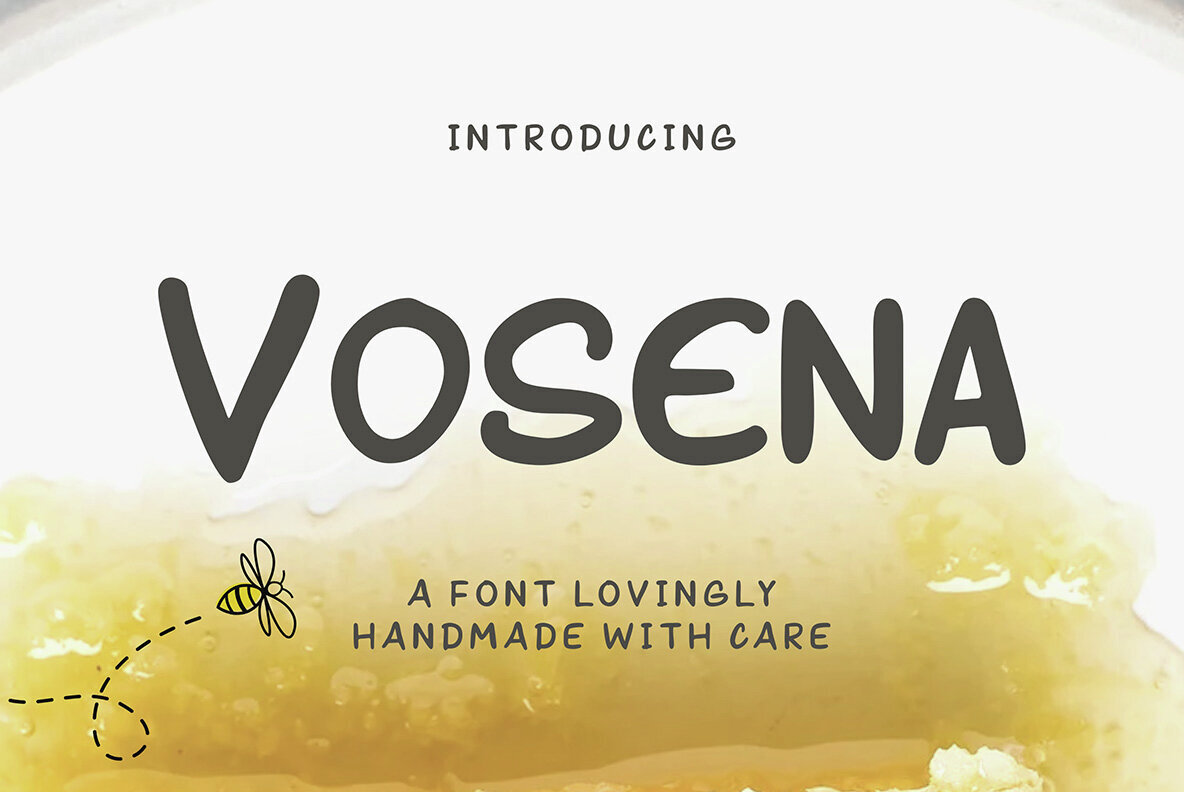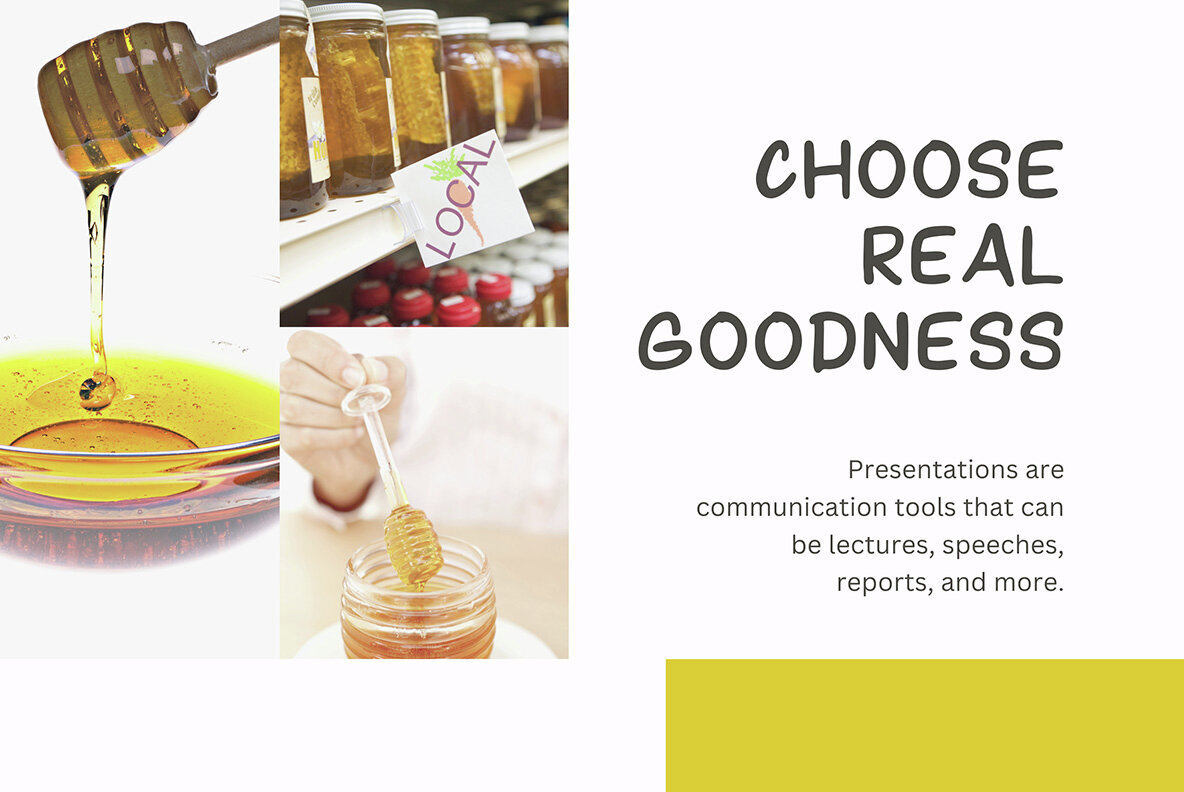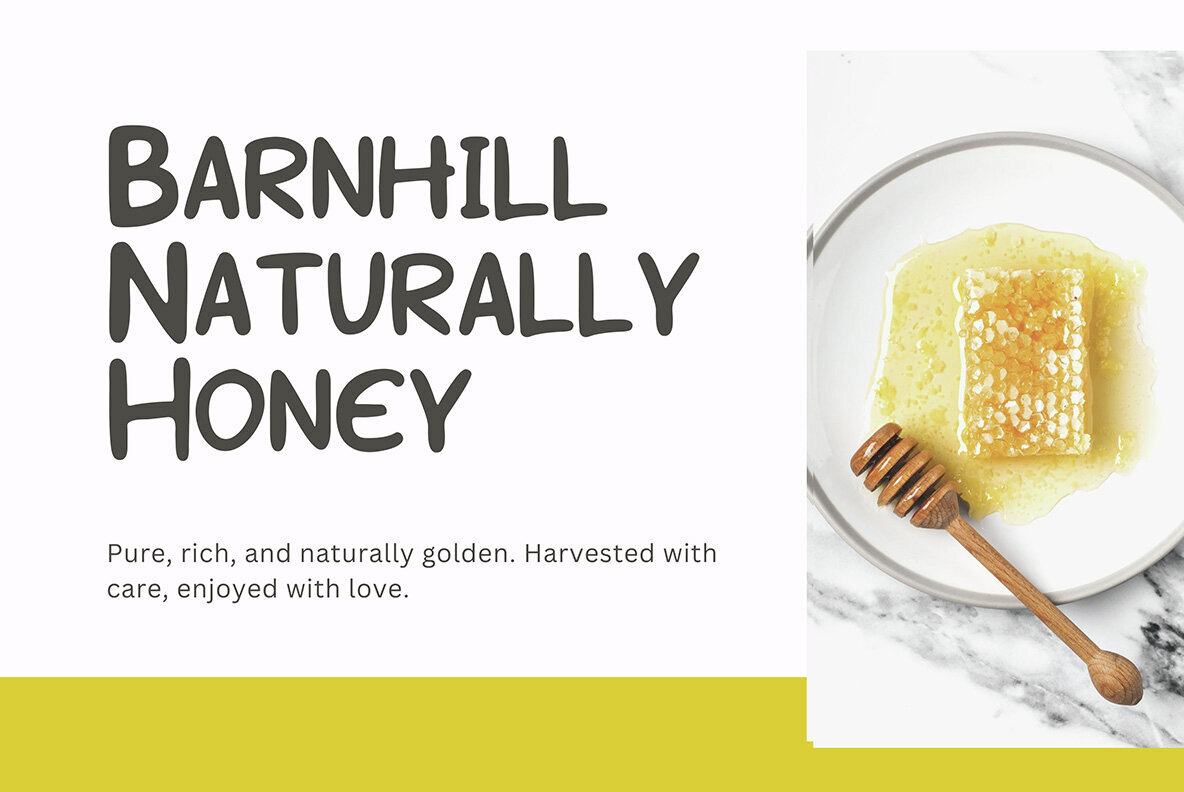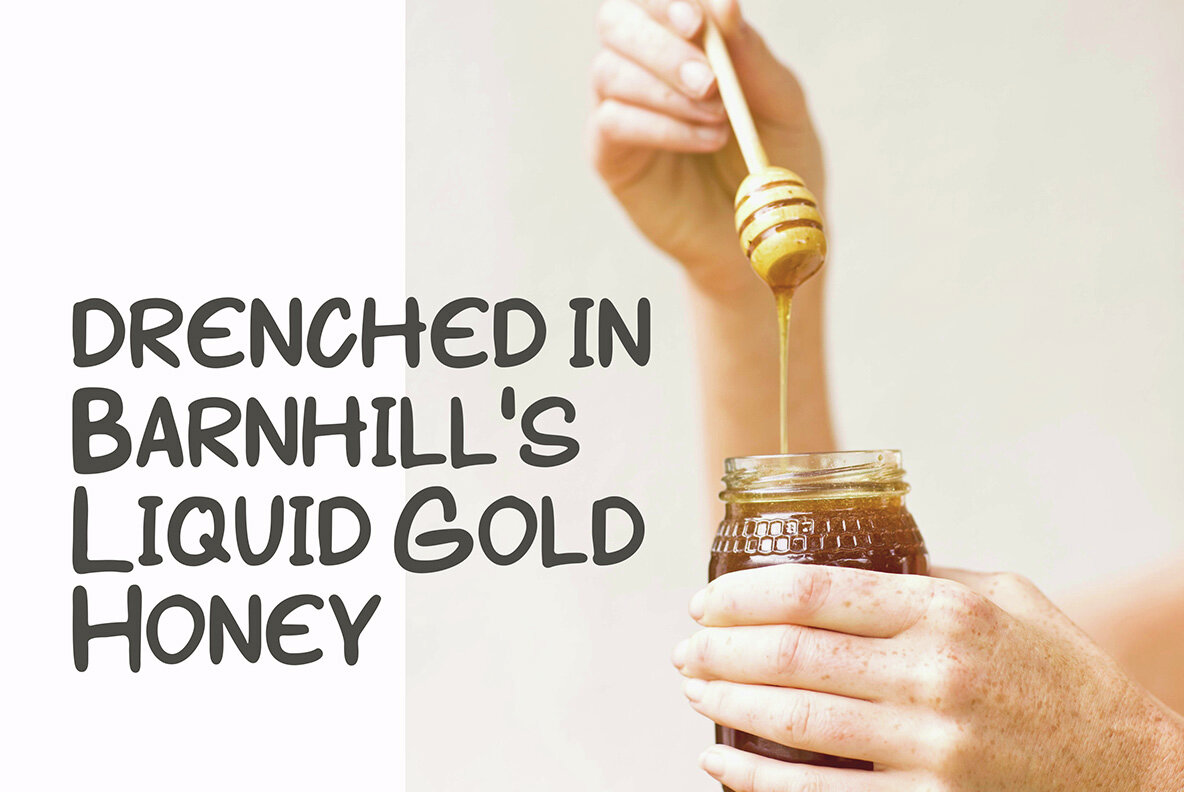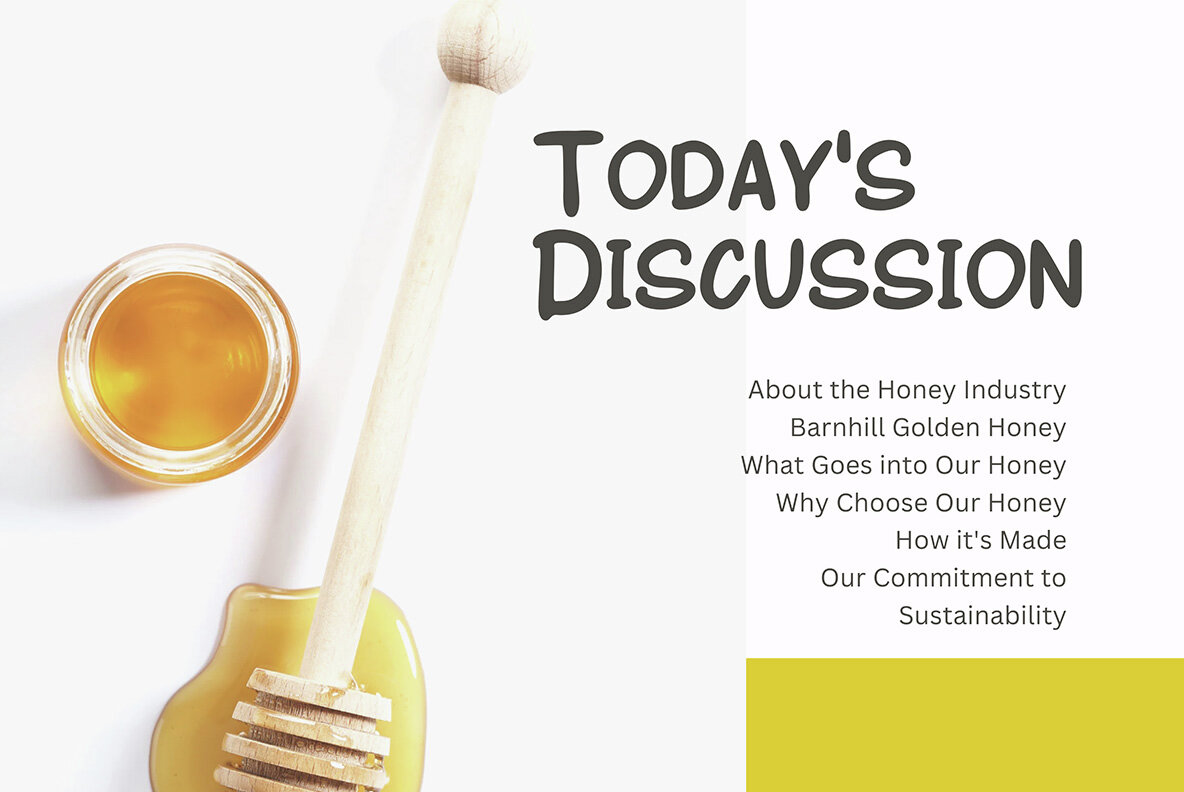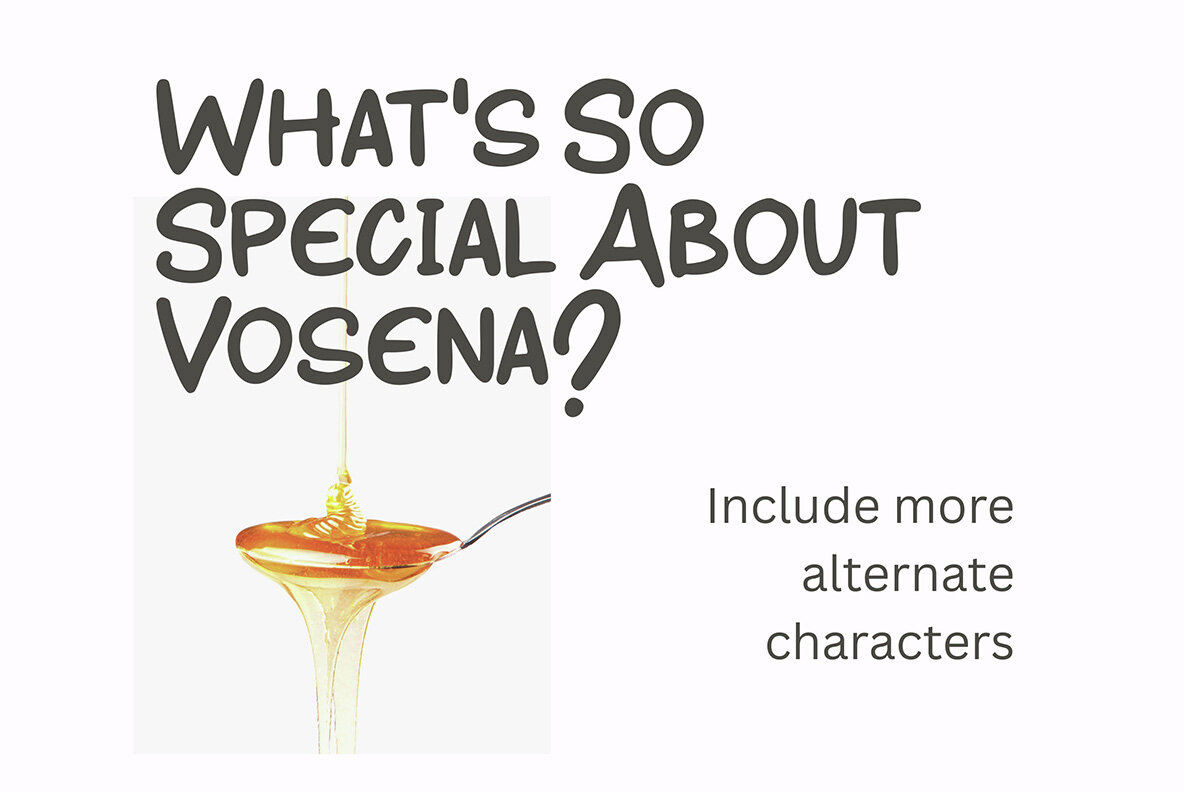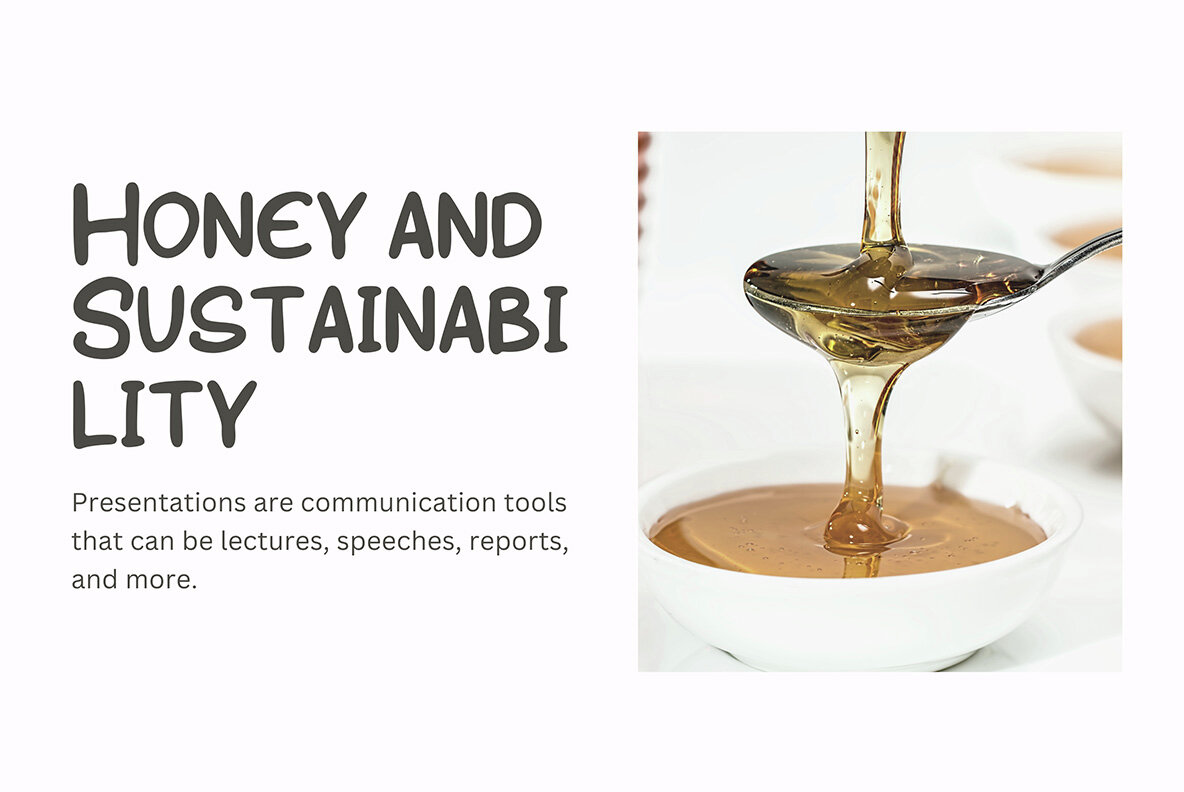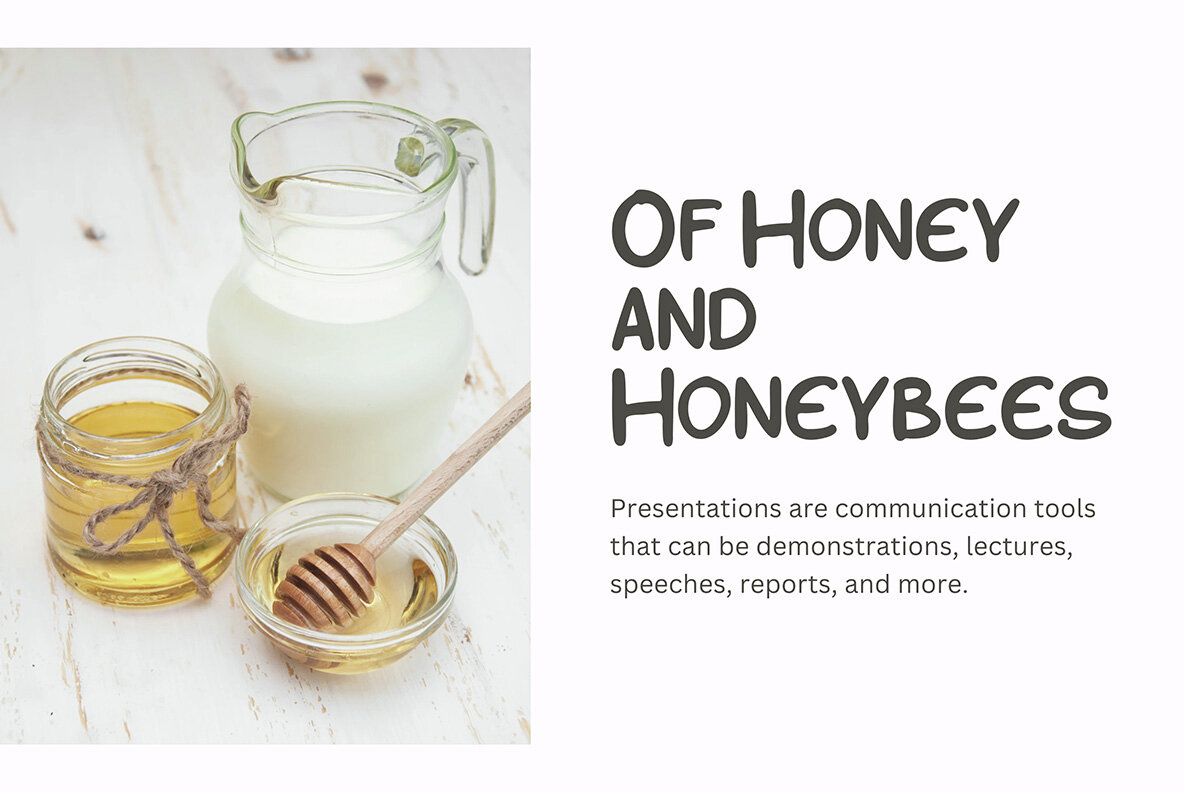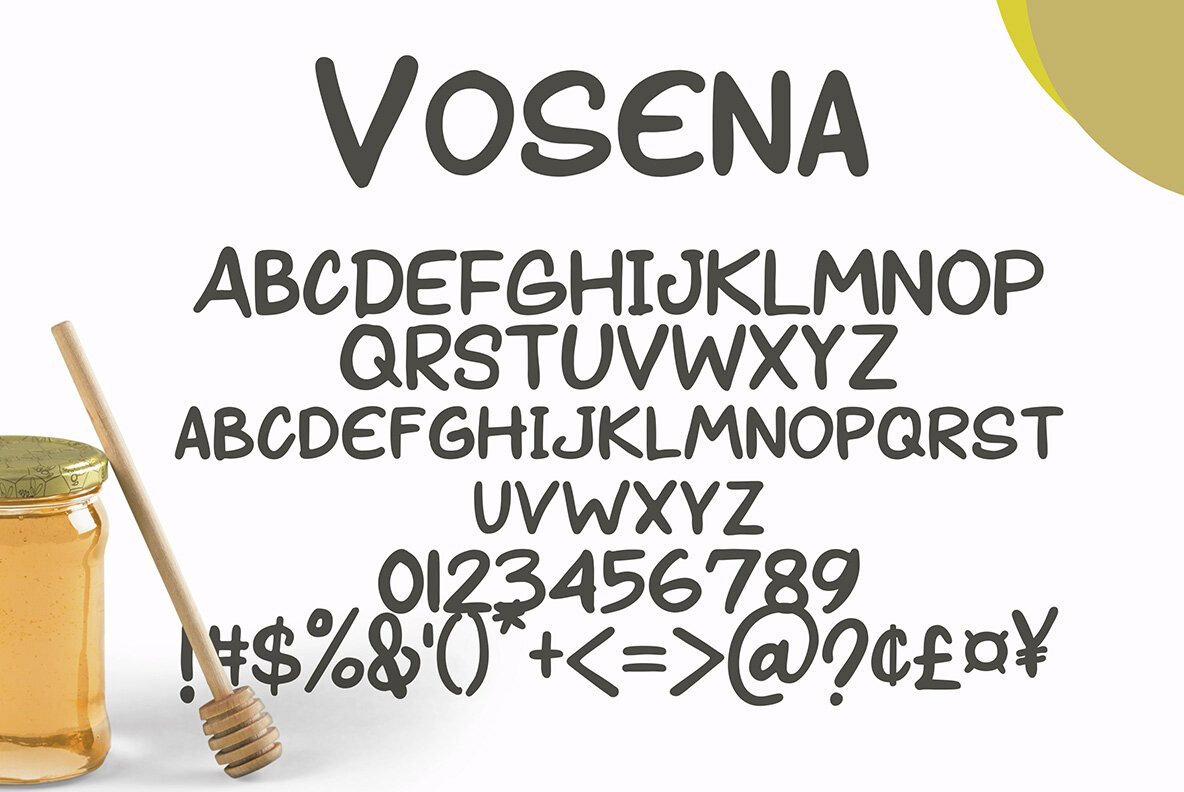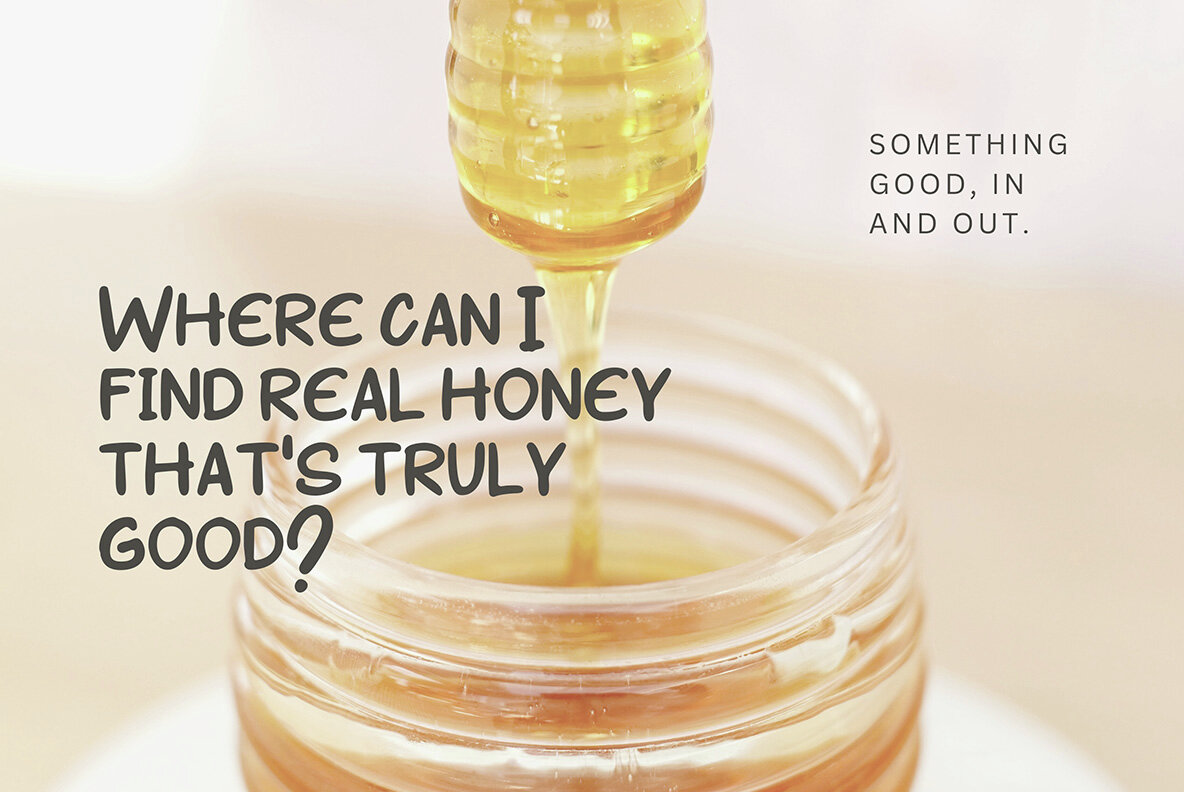
Vosena Font
Vosena
Vosena is a dynamic handwritten display font crafted for the modern creative. Bold yet casual, it's perfect for bringing a distinctive flair to branding, social media posts, product packaging, and event posters. With its clean and confident design, Vosena adds personality without excess, delivering a fresh, handcrafted vibe to any layout.Vosena Handwritten Display Font